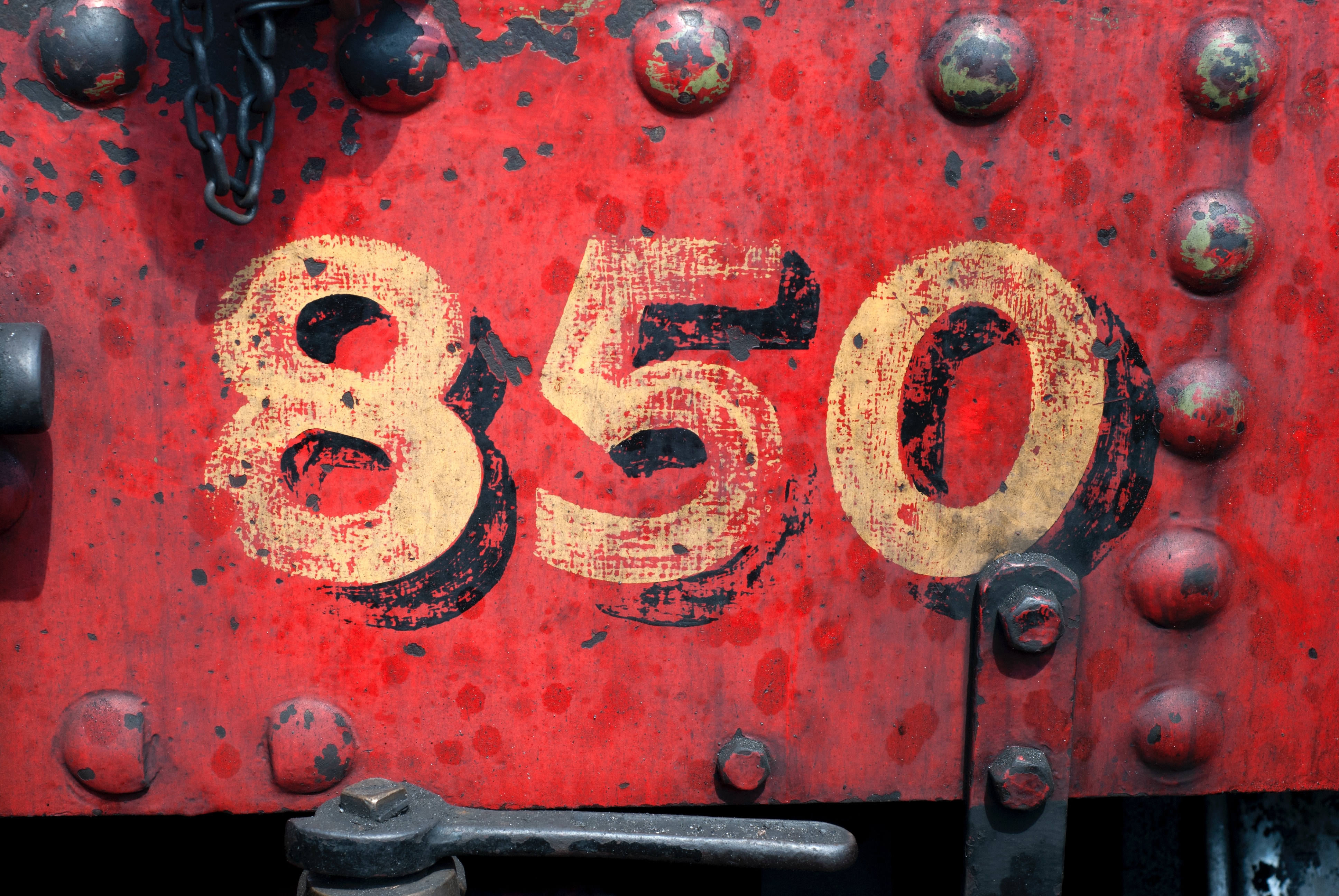
A Deep Dive into Font Anatomy: The Key Elements of Typeface Design
Introduction: Understanding the Importance of Font Anatomy in Typeface Design
Typography is an essential aspect of design, and it plays a crucial role in conveying a message effectively. Typeface design is a complex process that involves understanding the anatomy of fonts and how each element contributes to the overall design. Font anatomy refers to the various parts of a typeface, including serifs, stems, bowls, and terminals. Understanding these elements is essential in creating effective typefaces that are legible, readable, and aesthetically pleasing.
The Anatomy of a Typeface: Key Terms and Definitions
To understand font anatomy, it is essential to familiarize oneself with the key terms and definitions used in typography. The following are some of the essential terms used in typeface design:
1. Serifs: These are the small lines or flourishes that extend from the ends of the strokes in a typeface. Serifs are often used in traditional or formal designs.
2. Stems: These are the vertical or diagonal lines that form the main structure of a letter.
3. Bowls: These are the curved or circular parts of letters such as "o," "b," and "d."
4. Terminals: These are the endpoints of strokes in a typeface.
5. Ascenders: These are the parts of letters that extend above the x-height, such as the top of the letter "h" or "b."
6. Descenders: These are the parts of letters that extend below the baseline, such as the bottom of the letter "g" or "y."
7. X-height: This is the height of the lowercase letters in a typeface, excluding ascenders and descenders.
8. Baseline: This is the imaginary line on which the letters sit.
9. Cap height: This is the height of the uppercase letters in a typeface.
10. Counter: This is the enclosed or partially enclosed space within a letter, such as the space inside the letter "o."
The Role of Serifs in Typeface Design
Serifs are one of the most recognizable elements of typography, and they play a crucial role in typeface design. Serifs are often used in traditional or formal designs, and they can add a sense of elegance and sophistication to a typeface. Serifs can also improve legibility by guiding the eye along the text and creating a more distinct shape for each letter.
There are several types of serifs, including bracketed serifs, unbracketed serifs, and slab serifs. Bracketed serifs have a gradual transition from the stem to the serif, while unbracketed serifs have a sharp transition. Slab serifs are thick and blocky, and they are often used in display typefaces.
Sans-Serif Fonts: Anatomy and Design Considerations
Sans-serif fonts are a popular choice for modern designs, and they are often used in digital media. Sans-serif fonts do not have serifs, and they have a clean and modern look. Sans-serif fonts are often used in body text because they are easy to read and do not distract from the content.
The anatomy of sans-serif fonts is similar to serif fonts, but they lack serifs. Sans-serif fonts have a more uniform stroke width, and they often have a larger x-height. Sans-serif fonts can be designed with a variety of weights and styles, including bold, italic, and condensed.
Understanding the Anatomy of Script and Handwritten Fonts
Script and handwritten fonts are designed to mimic handwriting, and they can add a personal touch to a design. Script fonts have a flowing and cursive style, while handwritten fonts have a more casual and informal look. Script and handwritten fonts can be challenging to read in body text, so they are often used in headlines or logos.
The anatomy of the script and handwritten fonts are unique, and it often includes flourishes, loops, and swashes. These elements can add personality and style to a design, but they can also make the text more difficult to read. Script and handwritten fonts should be used sparingly and in appropriate contexts.
The Importance of Kerning and Spacing in Typeface Design
Kerning and spacing are essential elements of typeface design, and they can have a significant impact on the legibility and readability of a typeface. Kerning refers to the adjustment of the space between individual letters, while spacing refers to the adjustment of the space between groups of letters.
Proper kerning and spacing can improve the overall appearance of a typeface and make it easier to read. Poor kerning and spacing can make a typeface look unprofessional and difficult to read. Kerning and spacing should be adjusted carefully to ensure that the text is legible and aesthetically pleasing.
The Role of Ligatures in Typeface Design
Ligatures are special characters that are designed to connect two or more letters in a typeface. Ligatures can improve the legibility and readability of a typeface by reducing the space between letters and creating a more natural flow of text. Ligatures are often used in script and handwritten fonts, but they can also be used in serif and sans-serif fonts.
The Anatomy of Numerals in Typeface Design
Numerals are an essential part of typography, and they can have a significant impact on the legibility and readability of a typeface. Numerals can be designed in a variety of styles, including old-style, lining, and tabular. Old-style numerals have varying heights and widths while lining numerals have a consistent height and width. Tabular numerals are designed to align vertically in tables and other tabular data.
The Impact of Weight and Contrast on Typeface Design
Weight and contrast are essential elements of typeface design, and they can have a significant impact on the legibility and readability of a typeface. Weight refers to the thickness of the strokes in a typeface, while contrast refers to the difference in thickness between the thinnest and thickest parts of a letter.
Typefaces with high contrast and thin strokes are often used in display typefaces, while typefaces with low contrast and thick strokes are often used in body text. The weight and contrast of a typeface should be carefully considered to ensure that the text is legible and aesthetically pleasing.
The Anatomy of Diacritics and Special Characters in Typeface Design
Diacritics and special characters are essential elements of typography, and they can have a significant impact on the legibility and readability of a typeface. Diacritics are marks that are added to letters to indicate pronunciation or to distinguish between similar letters. Special characters include punctuation marks, symbols, and other characters that are not part of the standard alphabet.
Diacritics and special characters should be designed carefully to ensure that they are legible and consistent with the rest of the typeface. Poorly designed diacritics and special characters can make a typeface difficult to read and unprofessional.
The Role of OpenType Features in Typeface Design
OpenType is a font format that allows for advanced typographic features, including ligatures, alternate characters, and small caps. OpenType features can add personality and style to a typeface, and they can improve the legibility and readability of text. OpenType features should be used sparingly and in appropriate contexts to ensure that the text is legible and aesthetically pleasing.
Conclusion: The Importance of Understanding Font Anatomy in Creating Effective Typefaces
Understanding font anatomy is essential in creating effective typefaces that are legible, readable, and aesthetically pleasing. Each element of a typeface, including serifs, stems, bowls, and terminals, plays a crucial role in the overall design. Proper kerning and spacing, the use of ligatures and special characters, and the careful consideration of weight and contrast can all contribute to the legibility and readability of a typeface. By understanding font anatomy and its role in typeface design, designers can create effective and engaging typography that effectively conveys a message.